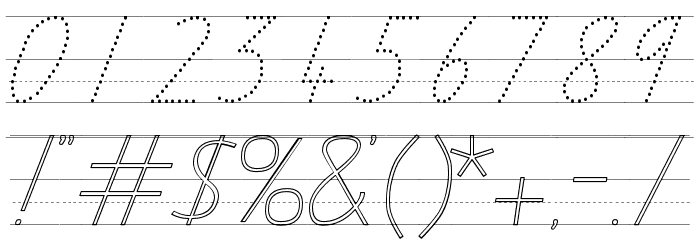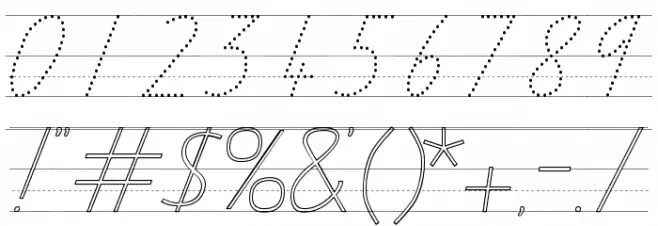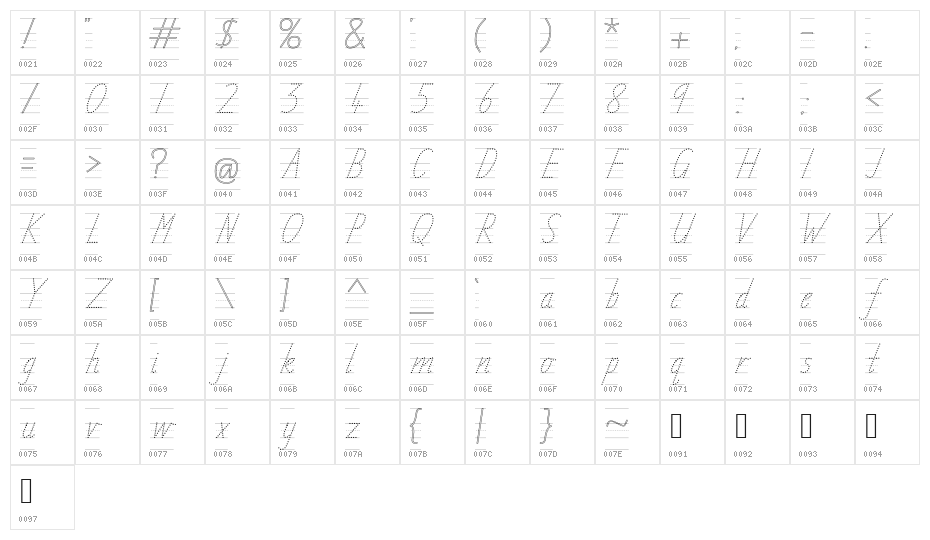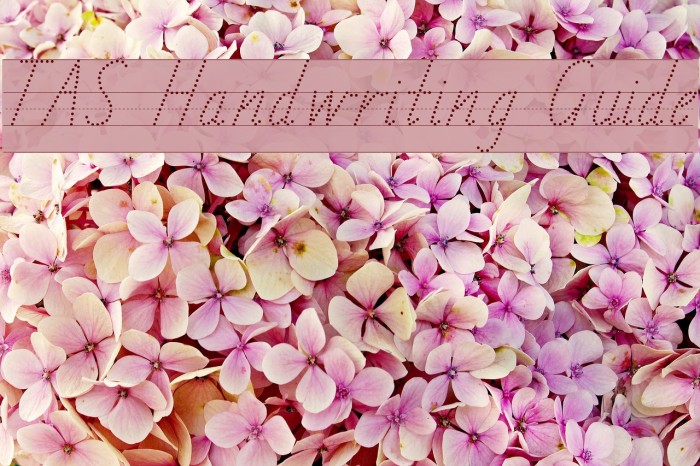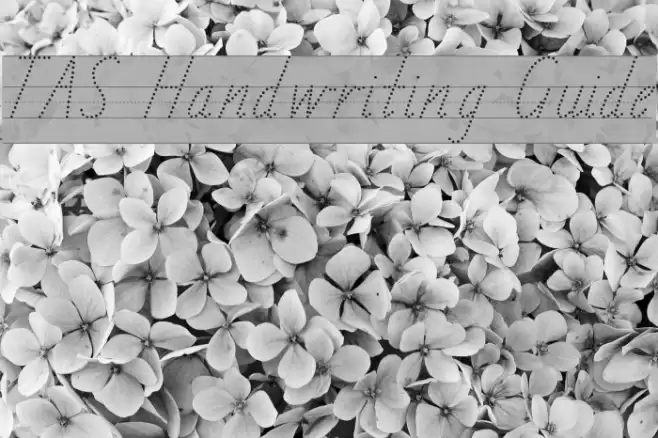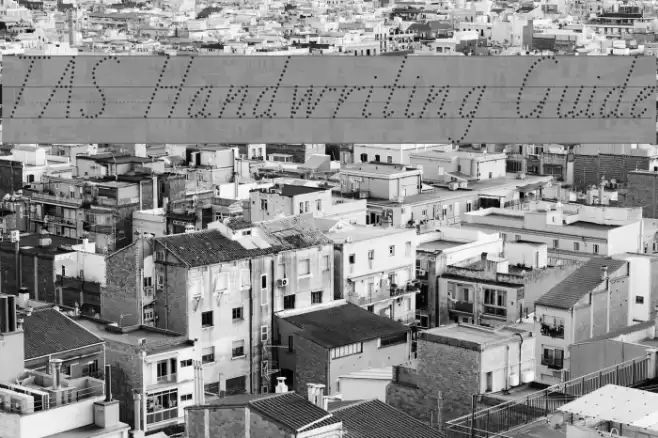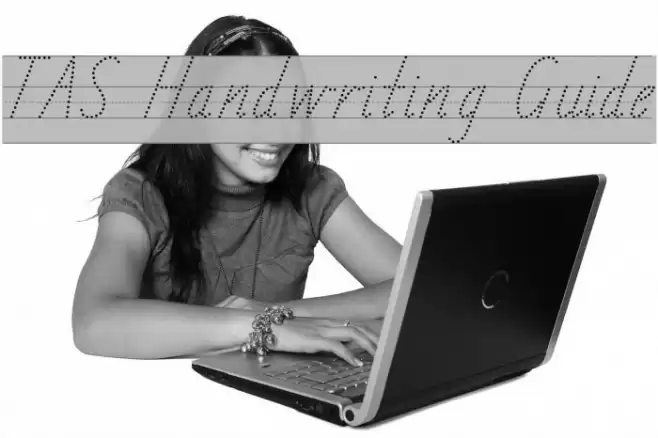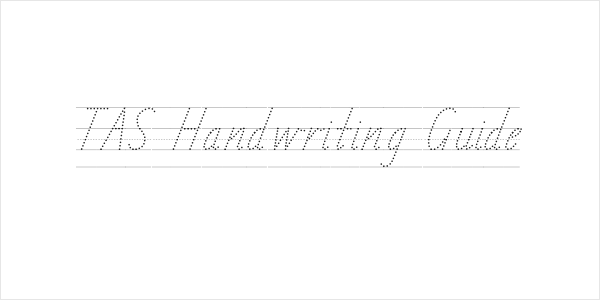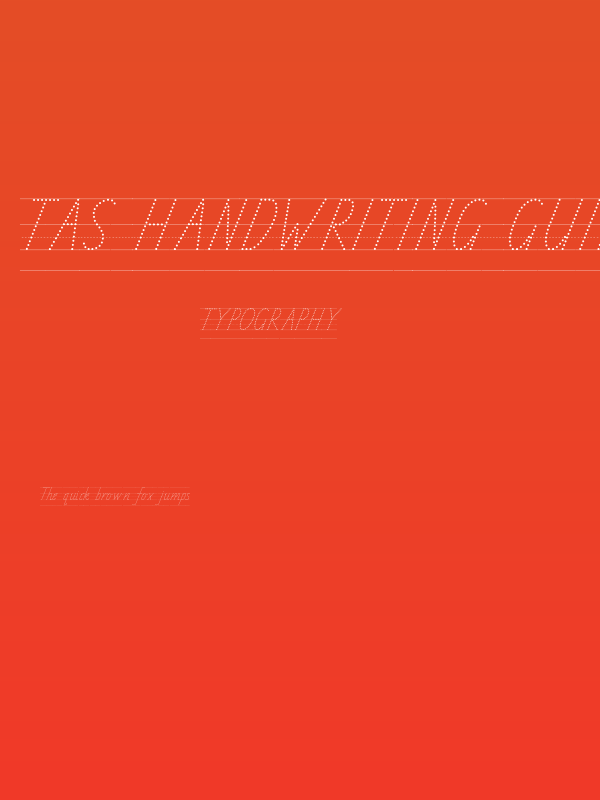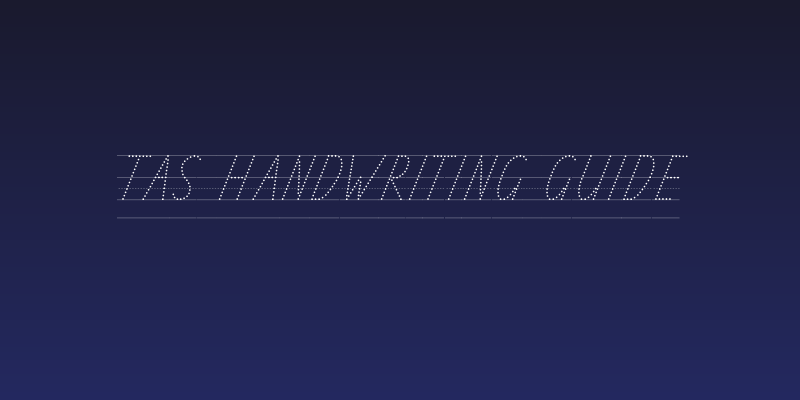
TAS Handwriting Guide Font
TAS Handwriting Guide Description
This font is designed to mimic traditional handwriting, featuring a dotted guide style that aids in learning and practicing cursive writing. Each character is composed of evenly spaced dots, creating a clear path for tracing. The uppercase and lowercase letters are slanted, reflecting a classic cursive style. Numbers and special characters maintain the same dotted pattern, ensuring consistency across all elements. The font is ideal for educational purposes, particularly in teaching children how to write in cursive. Its structured yet flexible design allows for easy adaptation to various handwriting exercises.
| Overall Style | Educational, Classic |
| Use Case | Handwriting practice, Educational materials |
| Proposed Projects | Ideal for educational materials, handwriting practice sheets, and cursive writing guides. |